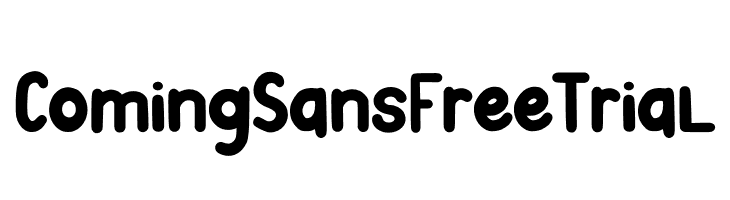
( Fonts by Typefactoryco )
A playful, rounded font with a bold and friendly style.
( Fonts by Typefactoryco )
A playful, rounded font with bold, smooth curves and a friendly appearance.